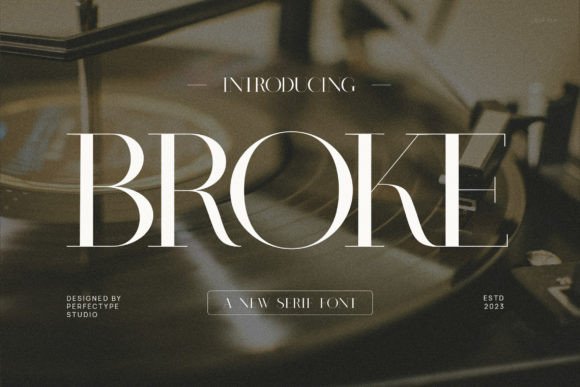
The Broke Font: A Timeless Elegance for Your Creative Projects
- ✅ Elegant serif typeface with a modern twist
- ✅ Highly readable, making it perfect for body text and headings
- ✅ Versatile and suitable for a wide range of design projects, from branding to social media posts
- ✅ Classy and sophisticated, adding a touch of luxury to your designs
- ⚠️ Some users may find the font a bit too ornate for very casual or playful designs
- Experiment with the font’s OpenType features, such as stylistic alternates and glyphs, to add some extra flair to your design.
The Story Behind Broke Font: Designer Inspiration
The Broke Font was designed with the intention of creating a timeless, elegant typeface that would cater to the needs of designers and crafters. Inspired by classic serif fonts, the designer aimed to create a modern, sophisticated font that would add a touch of luxury to any design project. Although the designer’s story is shrouded in mystery, their passion for typography and design is evident in the Broke Font’s refined features.
Q: What type of projects is Broke Font best suited for?
A: Broke Font is versatile and can be used for a wide range of design projects, including branding, logos, wedding designs, social media posts, advertisements, product packaging, and more.
Q: Is Broke Font available in different weights and styles?
A: Yes, Broke Font comes in various weights and styles, allowing you to experiment with different looks and feels in your designs.